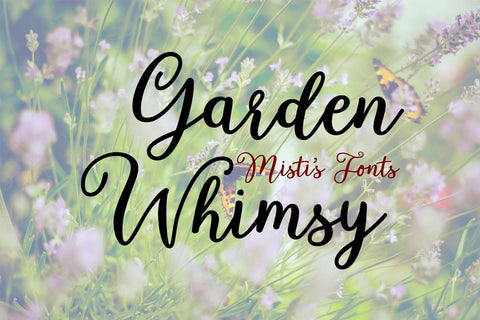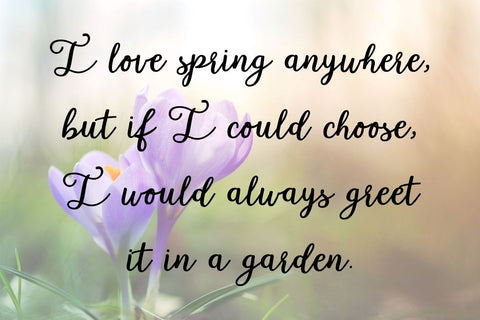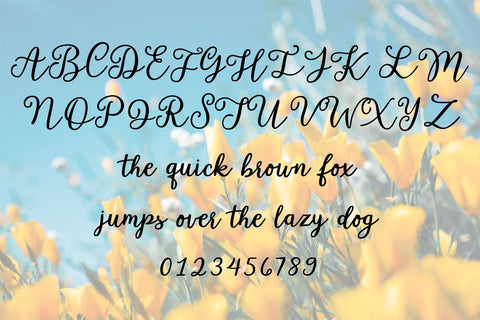
Garden Whimsy
Garden Whimsy is a playful, bouncy cursive font full of charm and character. Perfect for invitations, logos, and creative projects, its flowing letters add a whimsical touch to any design. Let your words bloom with Garden Whimsy!